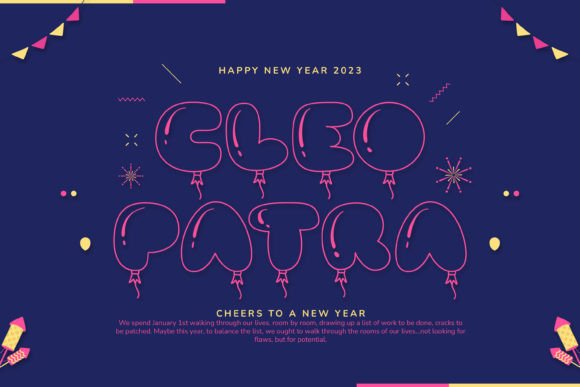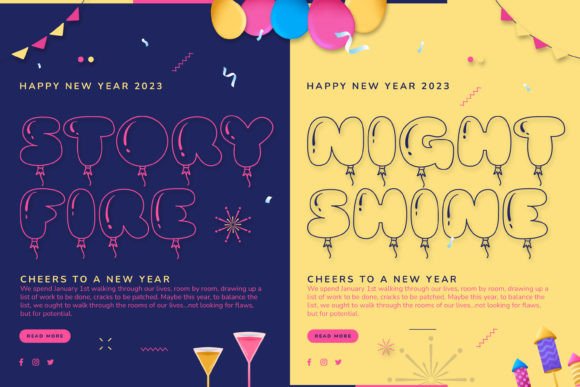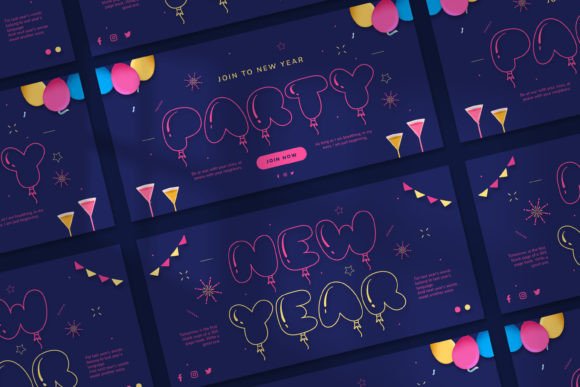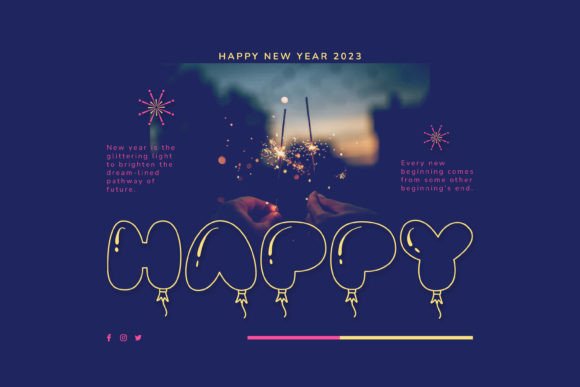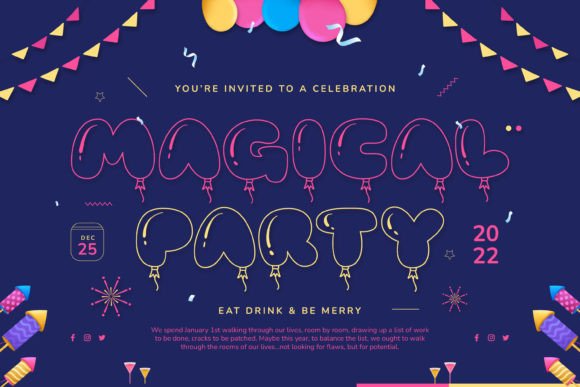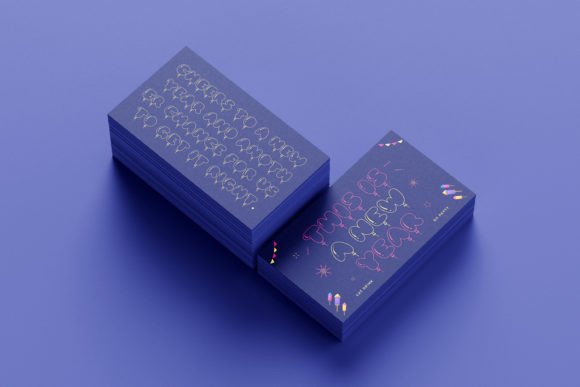
Introducing Canary Font: The Ultimate Display Font for Creatives
Are you tired of using the same old fonts for your designs? Look no further! Canary Font is here to bring a burst of energy and positivity to your projects. This fun and cheerful display font is perfect for designers, crafters, and anyone looking to add a touch of charm and style to their work.
What Makes Canary Font So Special?
Canary Font is a friendly typeface that exudes warmth and character. Its unique design makes it perfect for a wide range of applications, from quotes and headings to logos, branding, merchandise, and websites. Whether you’re working on a creative project or building a brand, Canary Font is sure to make a lasting impression.
Key Features of Canary Font
- Fun and Cheerful Design: Canary Font is designed to bring a smile to your face. Its playful and upbeat style is perfect for adding a touch of personality to your designs.
- Highly Versatile: This font is suitable for a wide range of applications, from digital projects to print materials.
- Easy to Read: Despite its playful design, Canary Font is highly legible, making it perfect for use in headings, titles, and quotes.
- Unique Character: Canary Font has a distinct charm that sets it apart from other display fonts.
Canary Font is a dream come true for designers and crafters. Its unique design and versatility make it perfect for a wide range of projects, including:
- Quotes and Headings: Add a touch of personality to your quotes and headings with Canary Font.
- Logos and Branding: Create a lasting impression with a custom logo or branding design using Canary Font.
- Merchandise: Add a touch of charm to your merchandise, from t-shirts to mugs, with Canary Font.
- Websites: Use Canary Font to add a touch of personality to your website’s headings and titles.
Tips for Using Canary Font
Here are a few tips for getting the most out of Canary Font:
- Use it as a Display Font: Canary Font is designed to be used as a display font, so use it to add emphasis and personality to your headings and titles.
- Experiment with Colors: Canary Font looks great in a wide range of colors, so don’t be afraid to experiment and find the perfect hue for your project.
- Pair it with Other Fonts: Canary Font pairs well with a wide range of fonts, so try pairing it with a serif or sans-serif font to create a unique look.
In conclusion, Canary Font is a fun and cheerful display font that’s perfect for designers, crafters, and anyone looking to add a touch of charm and style to their work. Its unique design, versatility, and ease of use make it a must-have font for any creative project. So why wait? Download Canary Font today and start adding a touch of positivity and character to your designs!